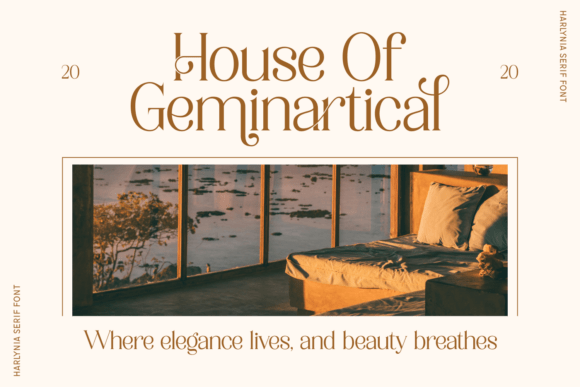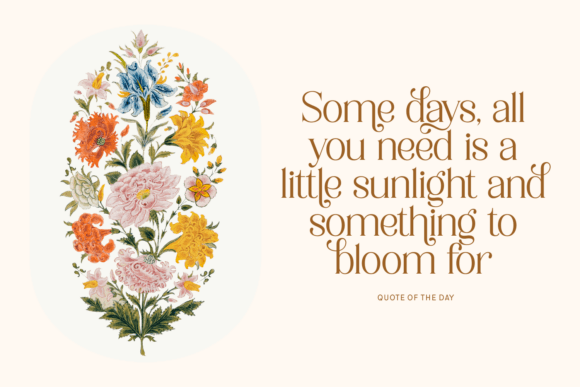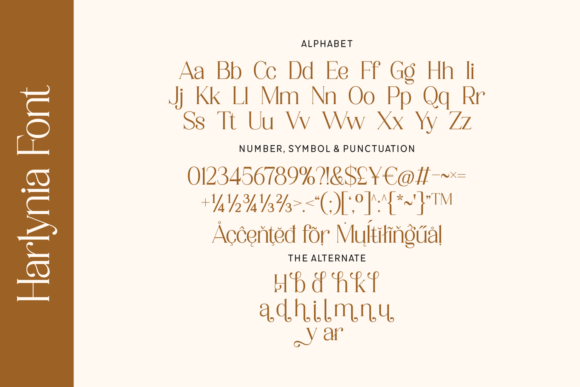
Introducing Harlynia: The Modern Serif Typeface for a Chic, Natural, and Sophisticated Boho Aesthetic
In the world of typography, a new font has emerged that embodies the perfect blend of modernity, elegance, and a touch of bohemian flair. Meet Harlynia, a contemporary serif typeface that is set to revolutionize the way designers and crafters approach their creative projects. With its chic, natural, and sophisticated aesthetic, Harlynia is poised to become a favorite among those who value unique and high-quality typography.
The Inspiration Behind Harlynia
Harlynia’s design is rooted in the desire to create a font that not only looks great but also feels organic and approachable. The creators of Harlynia drew inspiration from the natural world, combining elements of traditional serif typography with a modern twist. The result is a font that exudes a sense of effortless sophistication, perfect for projects that require a touch of elegance and refinement.
Key Features of Harlynia
So, what sets Harlynia apart from other serif typefaces? Here are some of its key features:
- Unique Letterforms: Harlynia boasts distinctive letterforms that are both modern and classic. Its serifs are carefully crafted to create a sense of fluidity and movement.
- Natural Flow: The font’s natural flow and rhythm make it perfect for body text, headings, and titles.
- Versatile: Harlynia is designed to be versatile, making it suitable for a wide range of applications, from digital media to print materials.
- Legible: The font’s exceptional legibility ensures that your message is conveyed clearly and effectively, even at smaller font sizes.
Use Cases for Harlynia
Harlynia’s versatility makes it an excellent choice for various design projects, including:
- Branding and Packaging: Create stunning brand identities, product labels, and packaging materials with Harlynia’s unique and sophisticated aesthetic.
- Digital Media: Use Harlynia in digital publications, blogs, and websites to add a touch of elegance and refinement.
- Print Materials: Harlynia is perfect for print materials such as brochures, flyers, posters, and business cards.
- Crafting and DIY Projects: Add a personal touch to your crafting and DIY projects, such as handmade cards, journals, and scrapbooking.
Why Choose Harlynia?
With so many fonts available, why choose Harlynia? Here are a few compelling reasons:
- Unique Design: Harlynia’s distinctive design ensures that your project stands out from the crowd.
- High-Quality: The font is crafted with attention to detail, ensuring a high level of quality and consistency.
In conclusion, Harlynia is a game-changing modern serif typeface that offers a unique blend of style, sophistication, and versatility. Whether you’re a designer, crafter, or DIY enthusiast, Harlynia is an excellent choice for any project that requires a touch of elegance and refinement. With its natural flow, legibility, and distinctive design, Harlynia is poised to become a favorite among typography enthusiasts.